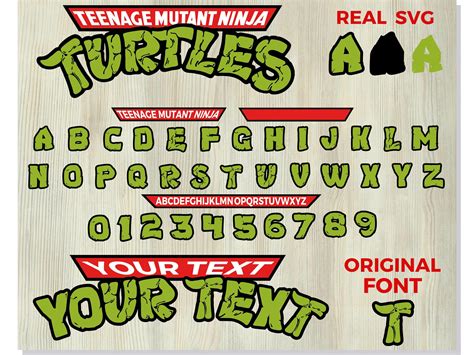
Tmnt Font Free. Teenage mutant ninja turtles, also known as tmnt, is a famous kids cartoon and movie series. This thick, distressed typeface is based on the popular clasic teenage mutant ninja turtles.
This thick, distressed typeface is based on the popular clasic teenage mutant ninja turtles. Teenage mutant ninja turtles, also known as tmnt, is a famous kids cartoon and movie series. Web note of the author.
Teenage mutant ninja turtles, also known as tmnt, is a famous kids cartoon and movie series. This thick, distressed typeface is based on the popular clasic teenage mutant ninja turtles. Web note of the author. Teenage mutant ninja turtles, also known as tmnt, is a famous kids cartoon and movie series.